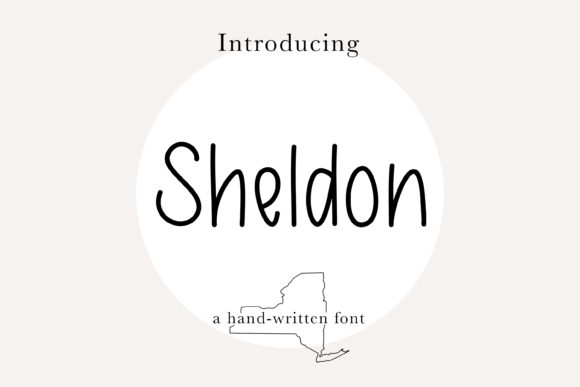
Dive into the world of Sheldon Font, a charming and elegant sans serif font family that exudes a touch of farmhouse flair, ready to transform your creative projects into masterpieces. Experience the beauty of Sheldon, meticulously crafted by beccasbrushlettering, a font designer known for capturing the essence of simplicity and style.
Embark on a creative journey with Sheldon, a font that seamlessly blends the allure of handwritten charm with the crispness of digital precision. Its skinny, elongated characters exude a sense of playfulness and energy, adding a touch of whimsy to your designs. Sheldon's unpretentious nature makes it incredibly versatile, adapting effortlessly to a myriad of creative expressions.
Whether you're a seasoned design professional or just starting your creative adventure, Sheldon is the perfect companion for a wide range of projects. Its versatility knows no bounds—from letterheads and titles that demand attention, to stationery and decals that radiate charm, Sheldon effortlessly elevates your creations.
Unleash your creativity with Sheldon, a font that adds a touch of farmhouse elegance to your designs. This beautiful font comes complete with a bold version, empowering you to emphasize key elements and add extra depth to your creations. Sheldon's bold personality is sure to make a statement, leaving a lasting impression on your audience.
Embrace the magic of Sheldon Font, a font that breathes life into your creative vision. Its timeless beauty and versatility make it an indispensable tool for designers of all levels. Experience the joy of creating with Sheldon and let your designs shine with a touch of farmhouse charm and handwritten elegance.